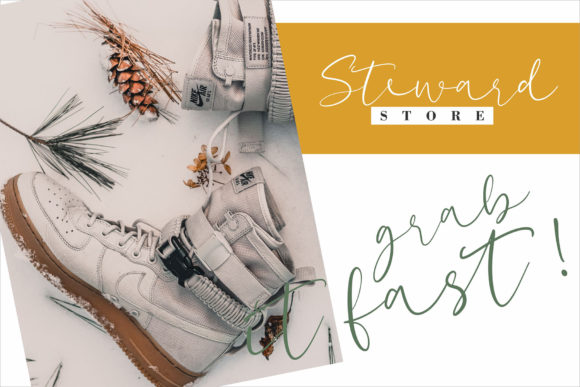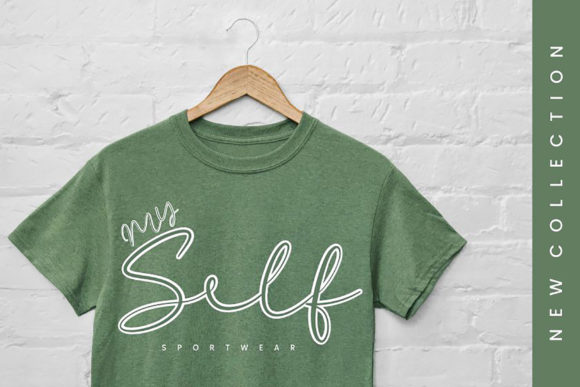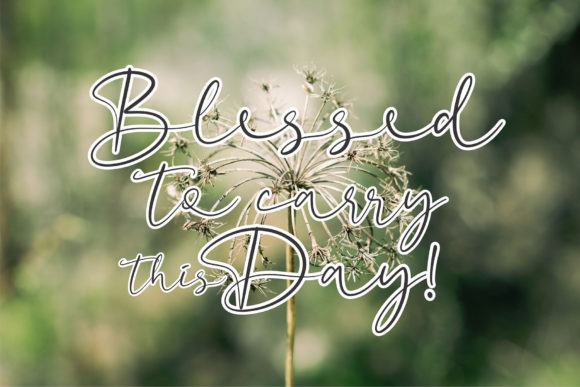
Introduction to Nafila Font
As a designer, there’s nothing quite like the thrill of finding the perfect font to elevate a creative project. You’re in the middle of brainstorming ideas for a wedding invitation, and suddenly, you stumble upon the perfect script – Nafila Font. Its elegant curves and soft lines transport you to a world of whimsy and romance, making it the perfect choice for any design that needs a touch of sophistication.
With its transparent background and versatile style, Nafila Font is perfect for designers looking to add a little extra magic to their work. Whether you’re a seasoned pro or just starting out, this font is sure to become a go-to design resource for your next creative project.
Key Features of Nafila Font
• High-quality font design with a unique and creative touch, perfect for various projects.
• Perfect for creative projects, including graphic design, typography, and branding, thanks to its elegant and modern design.
Honest Review: Nafila Font
I recently stumbled upon the Nafila Font and was immediately drawn to its unique style and versatility. As a designer, I’m always on the lookout for high-quality design resources to enhance my creative projects, and I’m happy to say that this font delivers.
• What works well: ✨ The Nafila Font is incredibly easy to read and comes in a range of weights, making it perfect for various design applications. I’ve used it for everything from logo design to print materials, and it always looks great.
Nafila Font
The Nafila Font is a versatile and stylish design resource perfect for creative projects. With its high quality and transparent background, it’s an excellent choice for designers looking to elevate their work.
Tips for Getting the Most Out of Nafila Font
The Nafila Font is ideal for a variety of creative projects, including logos, branding materials, and social media graphics. Its high quality and transparent background make it perfect for use in presentations, reports, and other business materials.